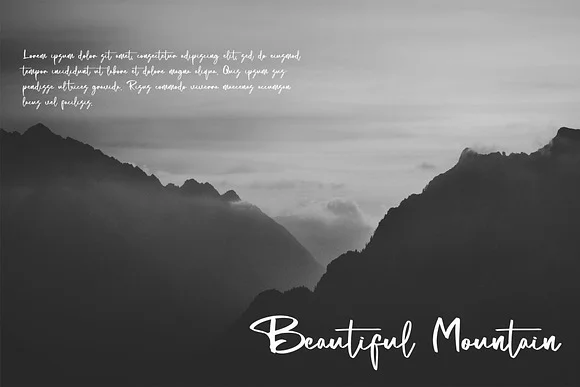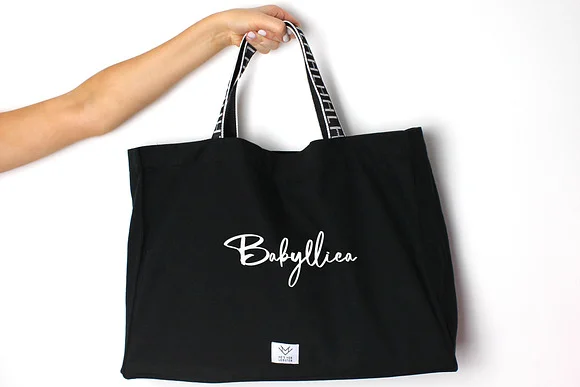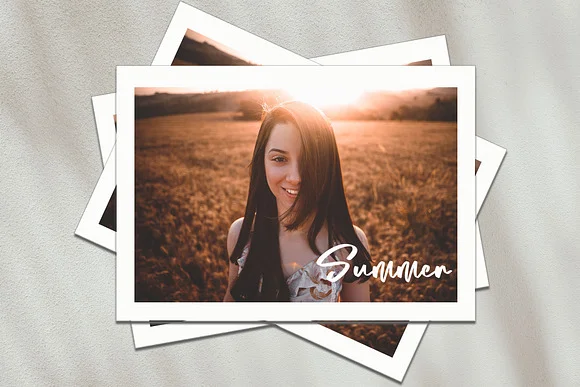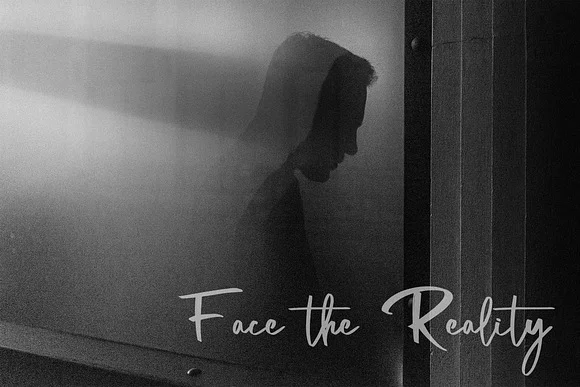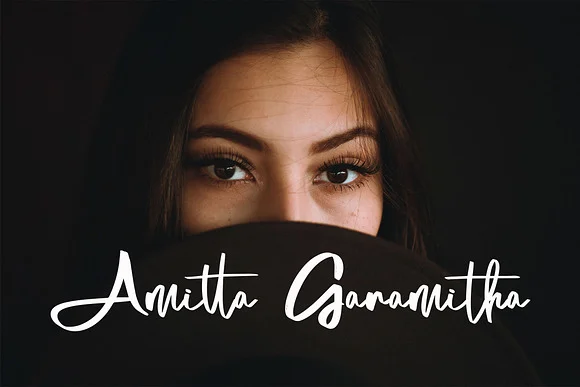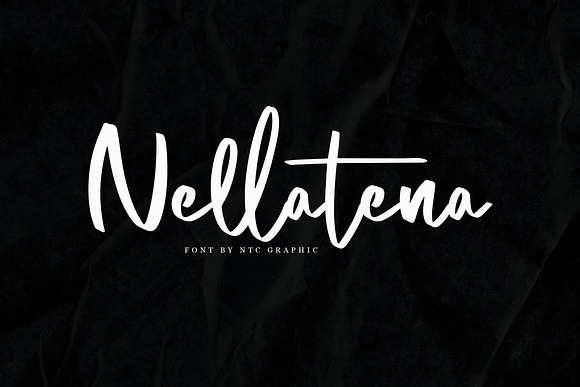
Nellatena Brush Script Font
Few typefaces manage to balance refined proportions and careful stroke modulation with genuine day-to-day practicality. Nellatena Brush Script is one of them. The typeface brings an elegant, calligraphic sensibility to a broad range of creative disciplines, with a confident voice that adapts to diverse briefs that holds up whether the work is print-first or screen-first.
In practice, Nellatena Brush Script proves particularly effective for feminine branding, environmental graphics, greeting cards, social media graphics, advertising campaigns. Designers reaching for it find that the type decisions feel resolved rather than laboured — a useful quality when client timelines are tight.
The range of applications extends to bridal materials, luxury stationery, packaging design, boutique logos. That breadth is deliberate: the proportions and spacing were stress-tested across a wide range of mock briefs before the typeface was finalised.
Pairing Nellatena Brush Script with a contrasting serif or a neutral grotesque gives mixed-format layouts a clear visual grammar without requiring constant size adjustments to establish hierarchy.
Art directors commissioning type-led campaigns find Nellatena Brush Script a reliable choice for projects that demand both personality and restraint. The design avoids the self-conscious quirkiness that dates quickly, settling instead for considered distinctiveness that holds up over time.